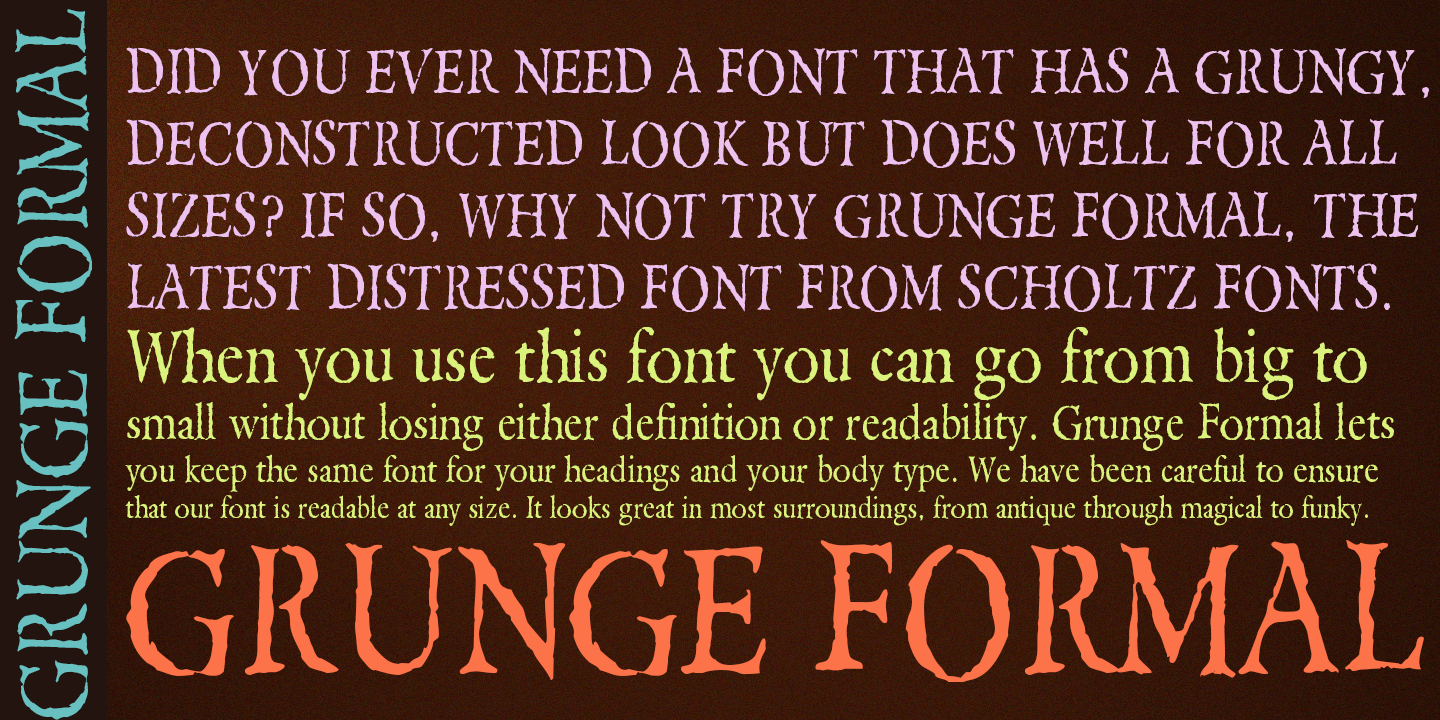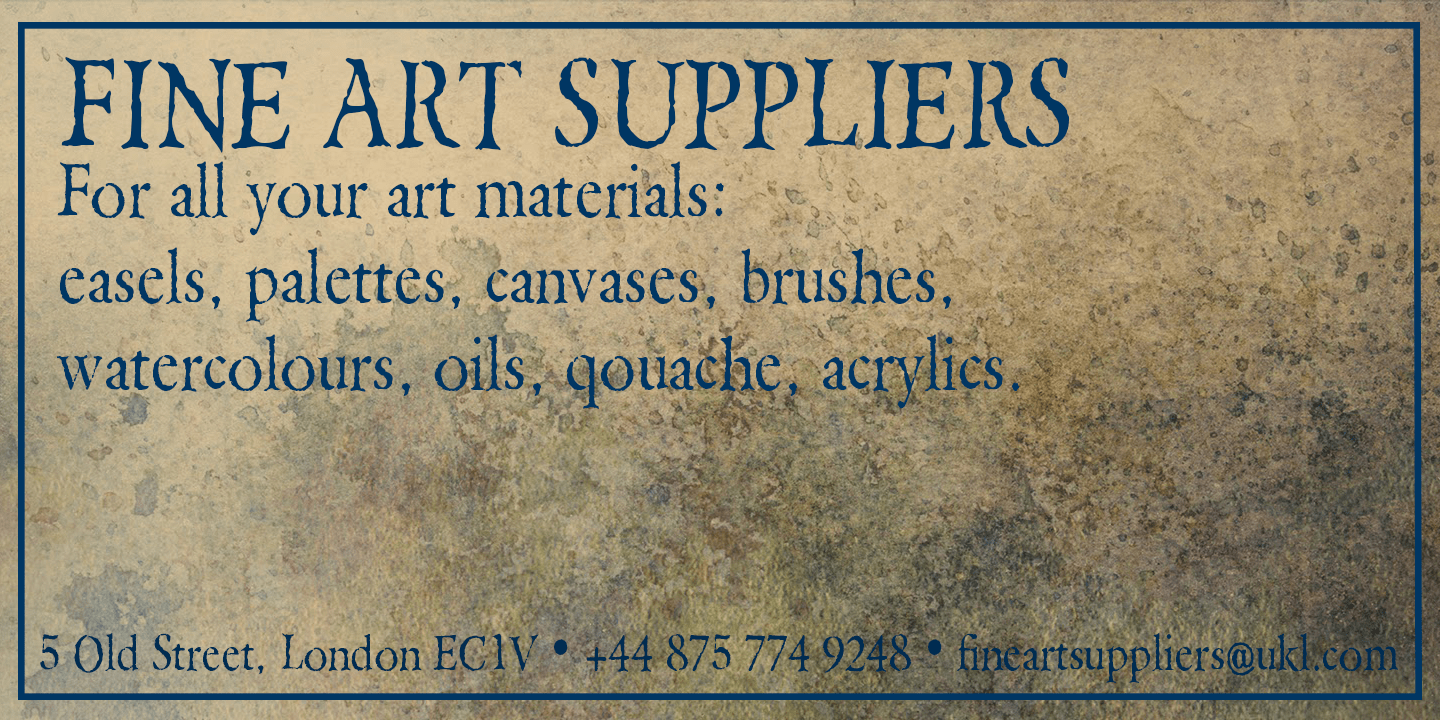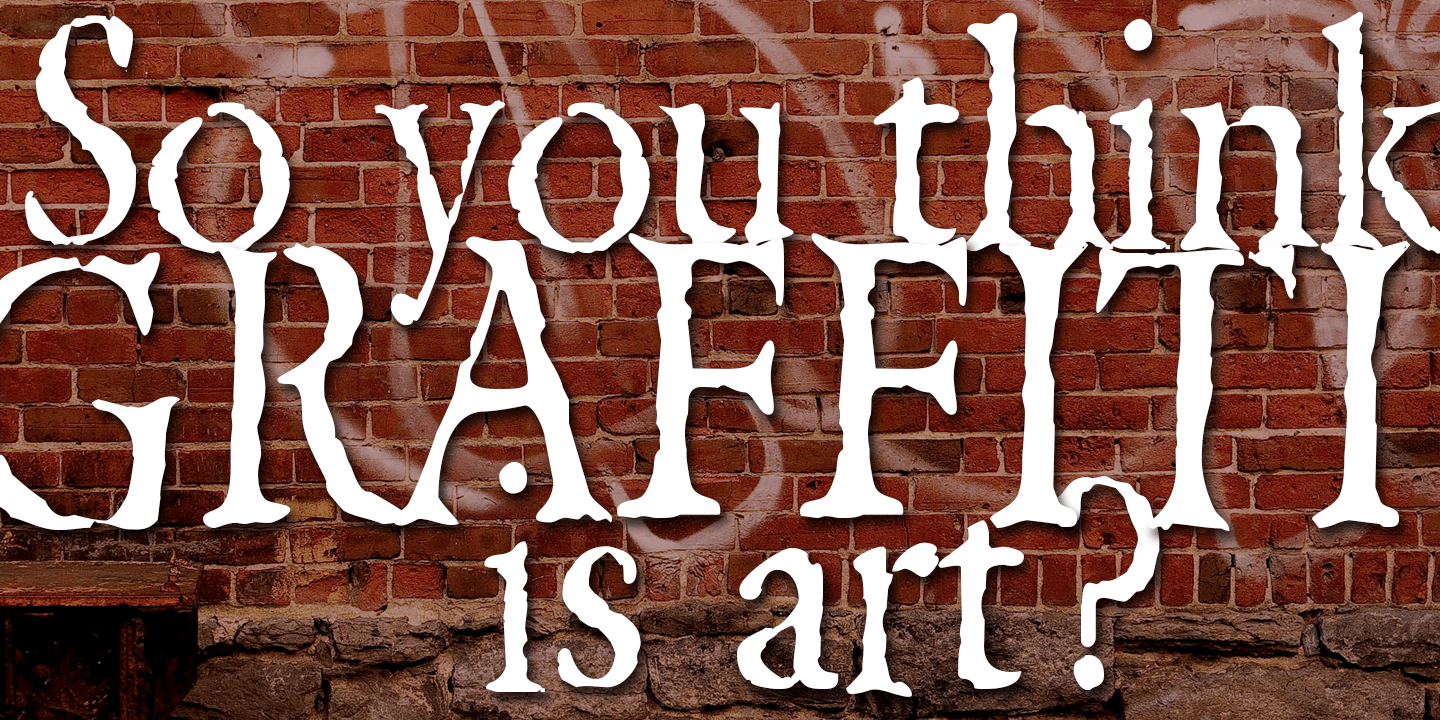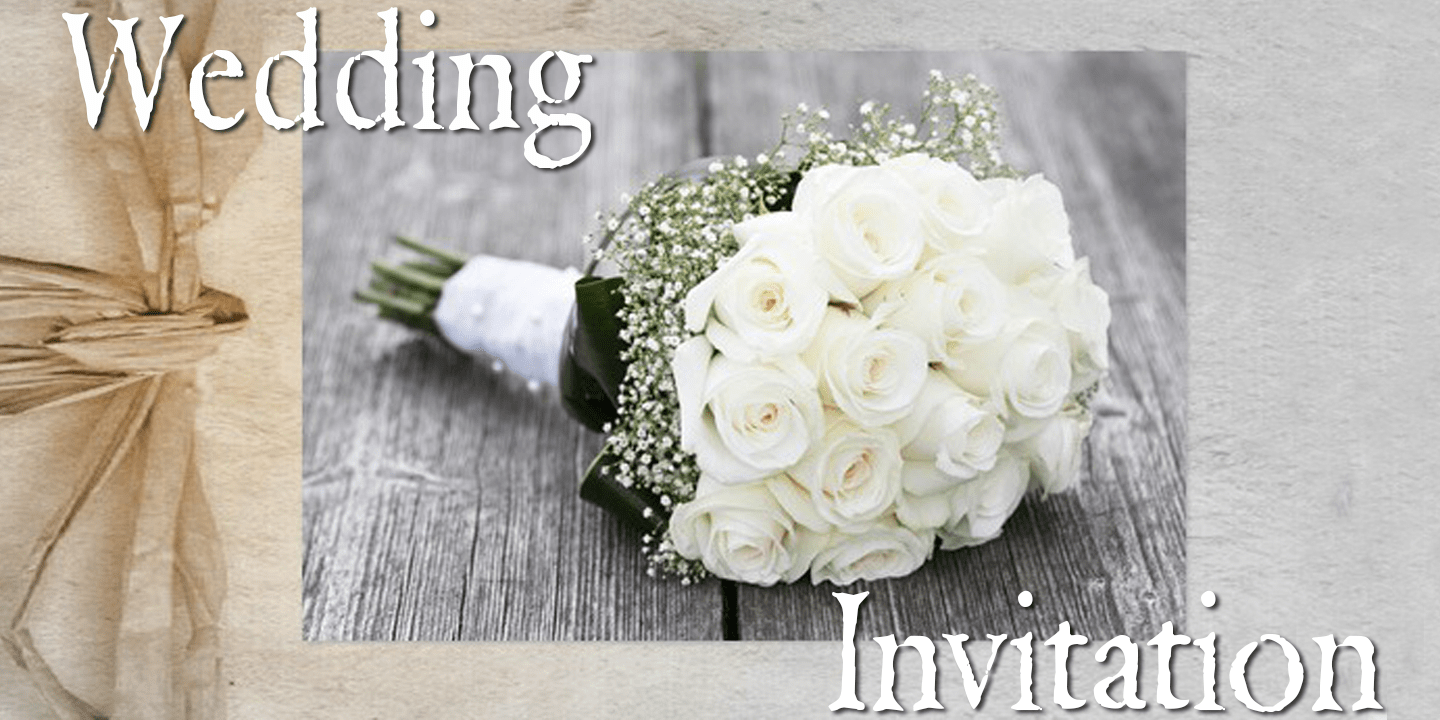
Grunge Formal
Buy NowGrunge Formal started out as a more upright, formal version of one of my fonts, Figment.
A most versatile contemporary typeface, Grunge Formal works equally well from funky to formal, from giant size headers to pint size body text, from movie posters to wedding invitations. If you've ever needed a font that has a grungy, deconstructed look but works well for all sizes, a font that you can use for funky, gritty designs, and also for formal wedding stationery, Grunge Formal is a perfect choice.
From the formal viewpoint, the font presents as a regular serif typeface with deconstructed edges, giving the antique look popular in wedding stationery design. Here it can be used from header to body size.
For in-your-face design, Grunge Formal, when oversized, is really powerful and its deconstructed outline provides a raw, rough contrast to your background images.
Grunge Formal has all the features usually included in a fully professional font. Language support includes all European character sets, Greek symbols and all punctuation.